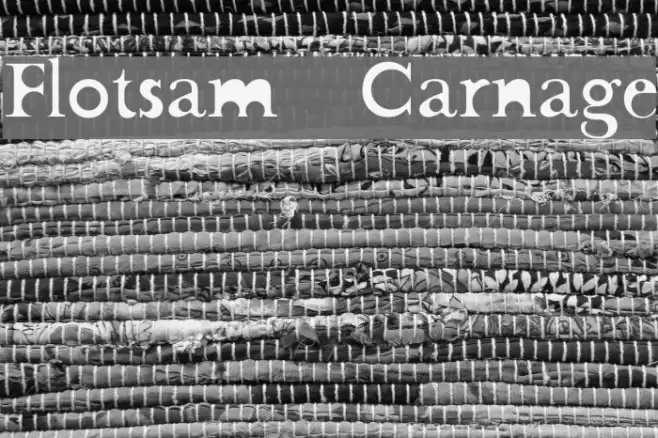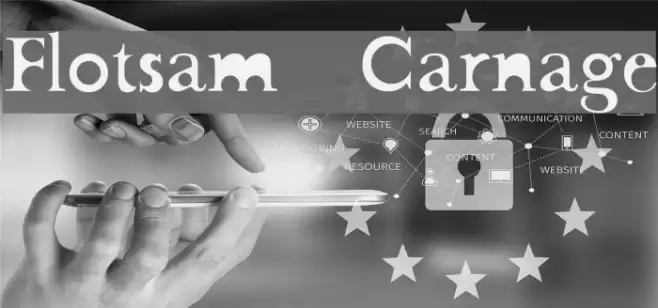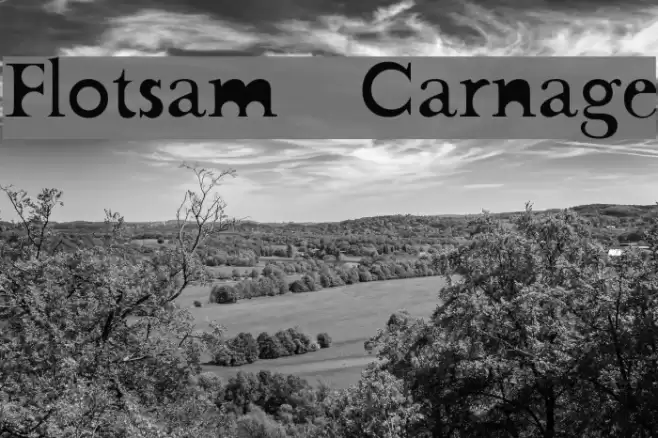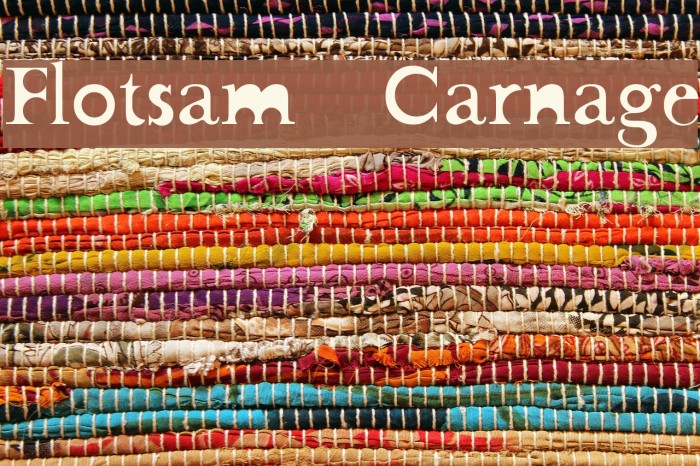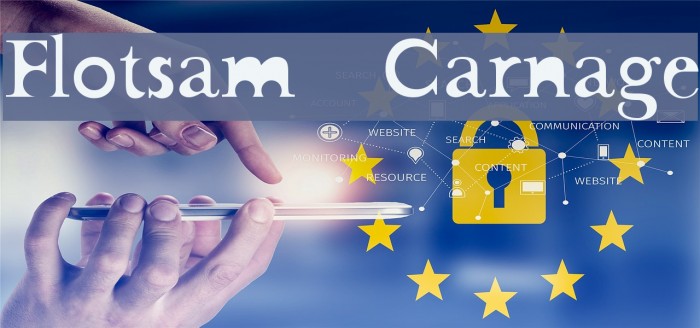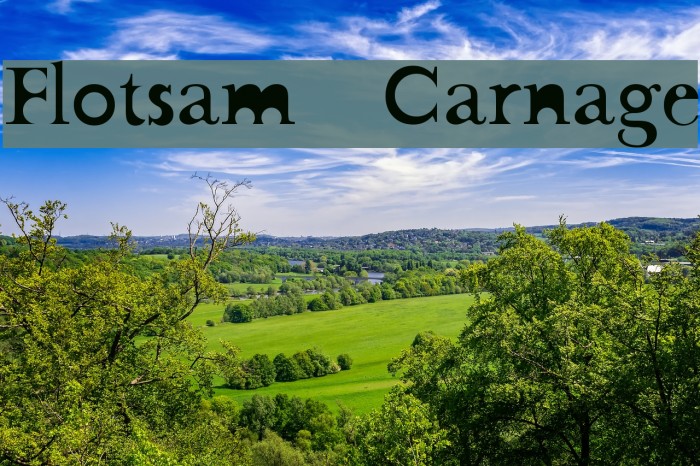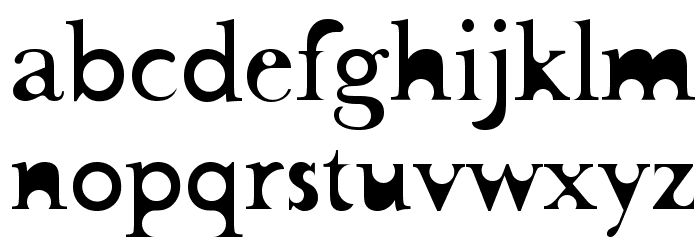
Flotsam Carnage Font
Flotsam Carnage Description
This font exhibits a unique blend of classic and modern elements, characterized by its bold and dramatic serifs. The uppercase letters feature strong, angular lines with pronounced serifs that give a sense of authority and elegance. The lowercase letters maintain a consistent style, with some characters displaying playful curves and unexpected angles, adding a whimsical touch. The overall design is both eye-catching and sophisticated, making it suitable for a variety of creative applications. The numbers and special characters follow the same stylistic cues, ensuring a cohesive look across all text elements.
A bold serif font with dramatic serifs and playful curves from Decorative fonts.